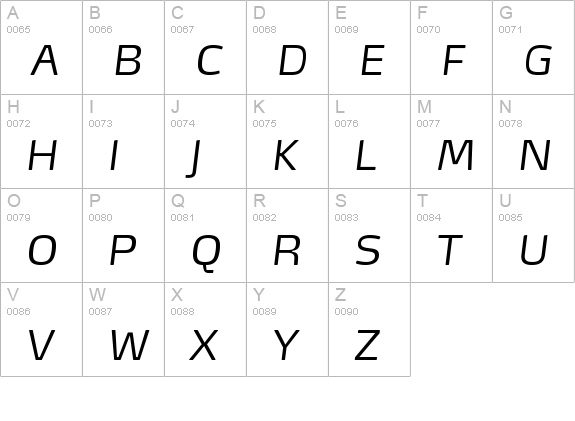
Max-LightItalic Font Details
Max-LightItalic is a sleek and elegant font that exudes sophistication and modernity. With its slender design and subtle italic slant, this font is perfect for adding a touch of sophistication to any project. The delicate lines and graceful curves of Max-LightItalic create a sense of refinement and style that is sure to impress. What sets Max-LightItalic apart is that it is not only visually appealing but also incredibly versatile. Whether you're designing a logo, creating a website, or crafting a presentation, this font will elevate your work to the next level. Its clean and minimalist aesthetic makes it suitable for a wide range of applications, from branding to editorial design. And the best part? Max-LightItalic is completely free to download at FontsMarket.com. This means that you can access this high-quality font without any cost, making it a valuable asset for designers, creatives, and anyone looking to enhance their projects with a touch of elegance. Don't miss out on the opportunity to elevate your work with Max-LightItalic - download it now and see the difference it can make!